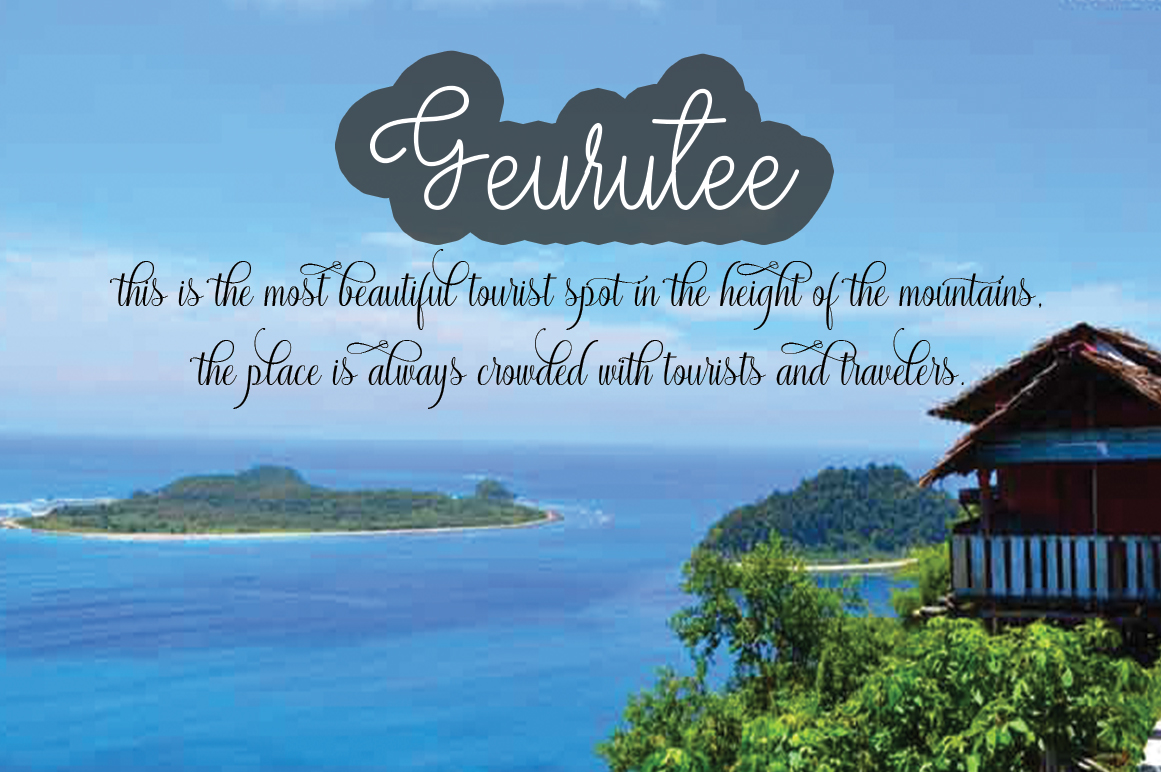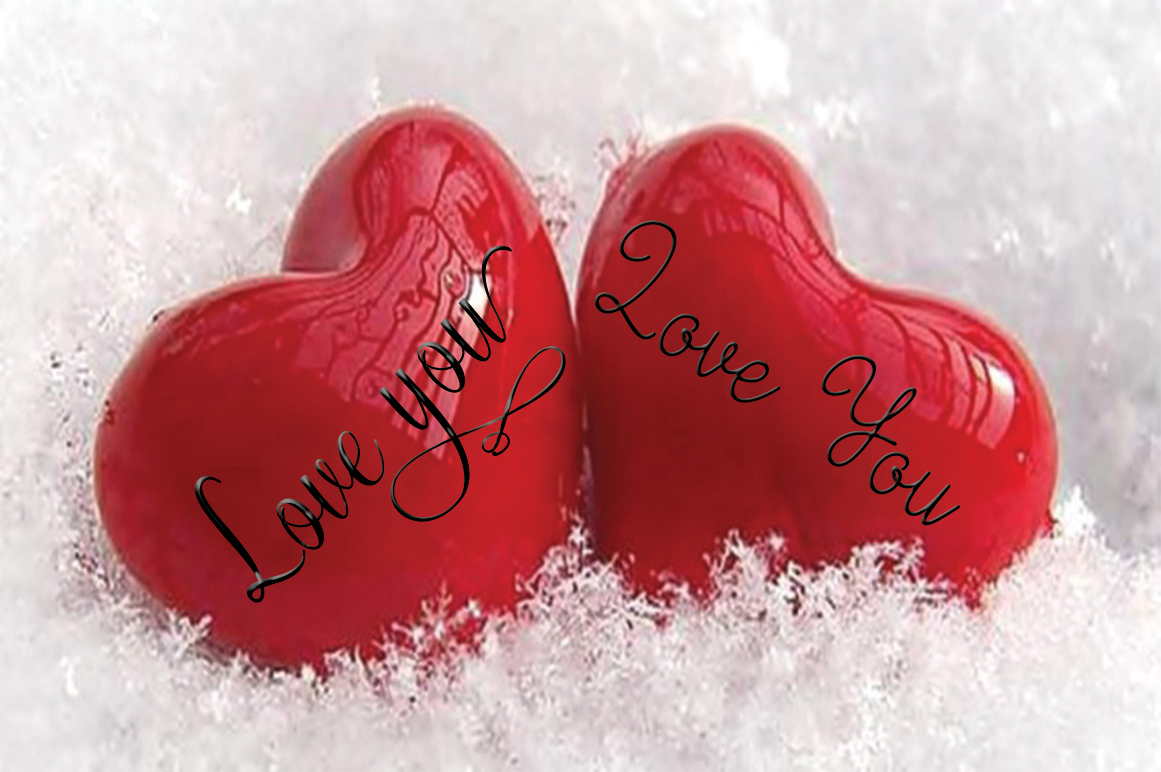
Eagle Font
db-ku.com - Script & Handwritten -- Eagle is an elegant and versatile calligraphy script font, ideal for giving your invitationals and other type-based projects a heartwarming appeal.